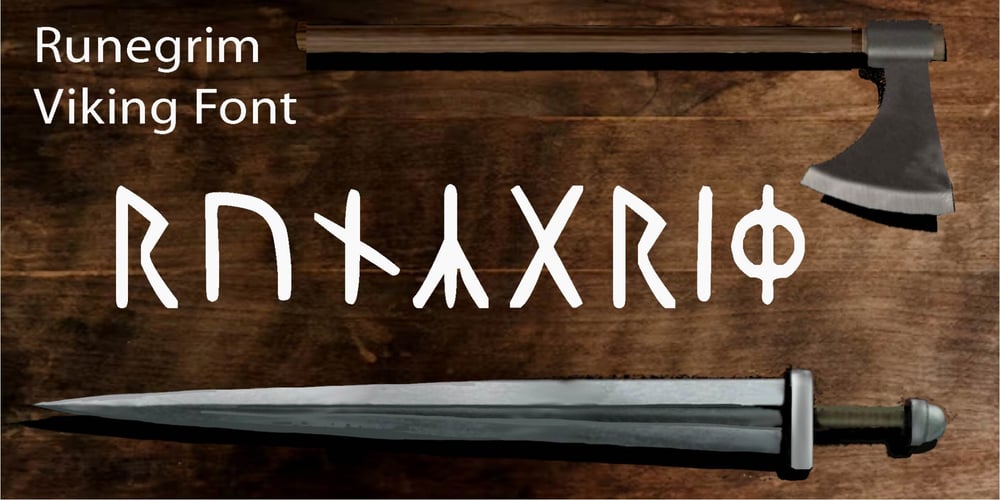
Runegrim Font Family was designed by bsmbang wisudyantoro and published by Beewest Studio. Runegrim contains 1 styles and family package options. “Runegrim” Font is Base in Anchient Viking Rune Script . This font is best as Clothing , apharel and any handicraft. This font is Very useful for the the people that not familiar with Unicode format of anchient font. Thank You for use this font.